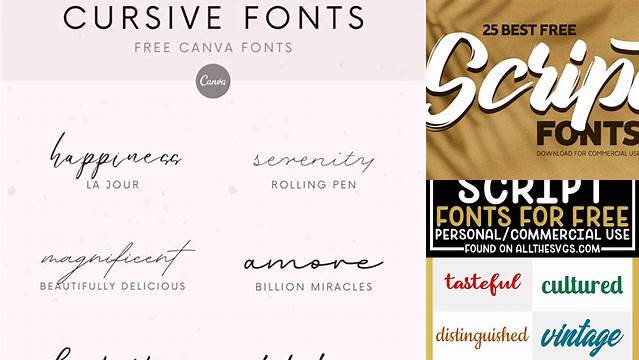
Free Script Fonts: Your Guide To Design Freedom
Welcome, font enthusiasts! Ever found yourself captivated by the elegance and personality of script fonts? They add a touch of class, a dash of flair, and a whole lot of character to any design. But what if you could enjoy these beautiful fonts without the constraints of commercial licenses? That's where commercial-free script fonts come into play, offering you the freedom to use these stunning typefaces in your projects without worrying about royalties or usage restrictions. This guide is your ultimate resource for everything you need to know about these fantastic fonts. We'll dive deep into their features, explore where to find them, and uncover how to use them to elevate your creative endeavors. Buckle up, because we're about to embark on a typographic adventure!
1. Understanding the Charm of Commercial-Free Script Fonts
Alright, let's get the basics down, shall we? Commercial-free script fonts are essentially typefaces that you can use for both personal and commercial projects without paying any licensing fees. This is a HUGE deal, guys! It means you can incorporate these gorgeous fonts into your logos, websites, marketing materials, and anything else you can dream up, without the added cost. These fonts often mimic the look of handwriting or calligraphy, bringing a human touch and a sense of sophistication to your designs. The beauty of a well-chosen script font lies in its ability to convey emotion, personality, and a sense of authenticity. Think about it: a flowing, elegant script can instantly make a brand feel more luxurious, while a playful, whimsical script can add a touch of fun. The variety within the script font family is astounding. You'll find everything from classic, traditional styles reminiscent of vintage signage to modern, minimalist options that fit perfectly with contemporary design trends. These fonts can be incredibly versatile, and with the right choice, they can be the perfect finishing touch that elevates your project from good to great. When choosing a script font, consider the message you want to convey. Do you want to project elegance, informality, or something in between? Also, pay attention to readability. While script fonts are visually appealing, some can be difficult to read, especially in small sizes or large blocks of text. Always test your chosen font to make sure it's easy on the eyes and serves your design needs. The beauty of commercial-free script fonts is that they unlock a world of creative possibilities without breaking the bank, and give designers the freedom to experiment with different styles and find the perfect match for their brand or project.
1.2 Benefits of Using Commercial-Free Script Fonts
Alright, let's talk about the perks of using commercial-free script fonts. First off, the biggest advantage is the cost. They are literally FREE! This is especially beneficial if you're a startup, a freelancer, or working on a project with a limited budget. Free fonts allow you to experiment with different styles without worrying about the financial implications. This freedom to experiment is a huge creative advantage. You can try out a wide variety of scripts to see what works best for your project. Maybe you'll want to try a fancy, formal script for a wedding invitation, or a more casual, handwritten script for a social media graphic. The possibilities are endless. Commercial-free script fonts also make your design process more accessible. Anyone can download and start using these fonts immediately, removing the need for expensive software or subscriptions. Moreover, by using these fonts, you're supporting independent designers and creators. Many commercial-free script fonts are created by talented individuals who generously share their work with the community. By using their fonts, you acknowledge their creativity and help spread their work. Also, these fonts can boost your design's uniqueness. Having access to a wide range of scripts gives you the ability to set your designs apart from those that rely solely on standard, overused fonts. This is especially important if you want to create a distinctive brand identity. Think about the visual impact of a beautifully designed logo or a website with a unique script font. It can significantly enhance your brand's personality and help you connect with your audience on a deeper level. Finally, commercial-free script fonts streamline your workflow. Without licensing hassles, you can quickly incorporate a beautiful font into your projects and get them off the ground without delays. So, whether you're looking to create a visually appealing logo, add a touch of elegance to your website, or design eye-catching marketing materials, these fonts are a great option to consider.
2. Finding the Best Free Script Fonts: A Curated List